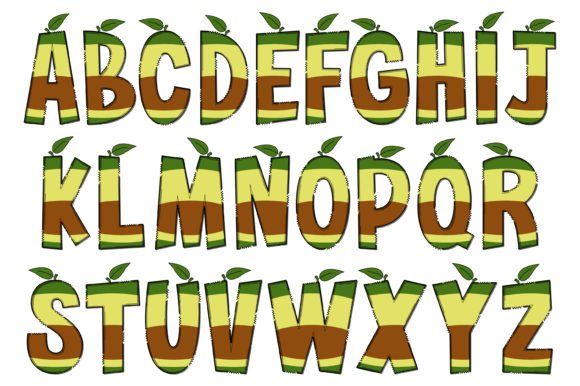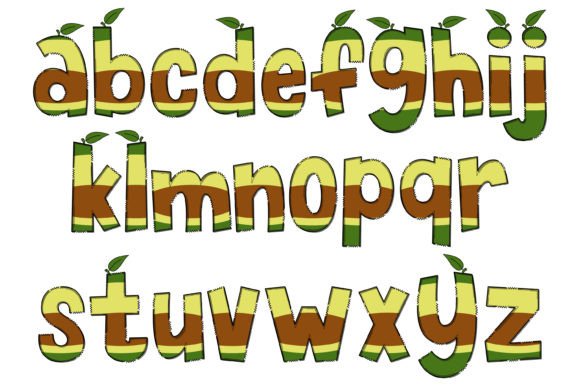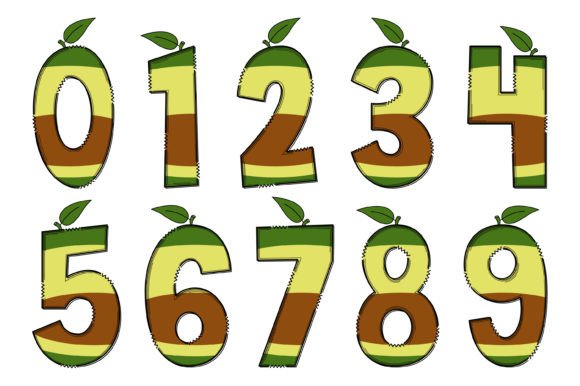
Introduction to Organic Avocado Font
Have you ever sat down at your desk, surrounded by scraps of paper, paint swatches, and a half-eaten bag of avocado toast, feeling inspired to create something truly special? That’s exactly the kind of moment where the Organic Avocado Font comes to life. This unique design resource is perfect for adding a playful touch to your creative project, whether it’s a children’s book, a poster, or a set of greeting cards.
As a designer, you know how important it is to choose a font that not only looks great but also conveys the right message. The Organic Avocado Font is a high-quality, color font that’s specifically designed to add a touch of whimsy and fun to your designs. With its transparent background and compatibility with popular design software like PhotoShop and Illustrator, this font is a valuable addition to any designer’s toolkit.
Key Features of Organic Avocado Font
- Unique Hand-Drawn Design: The Organic Avocado Font features a distinctive, hand-drawn style that adds a touch of elegance to any creative project.
- Perfect for Creative Projects: The Organic Avocado Font is ideal for a variety of creative projects, including branding, packaging, and digital design.
Honest Review: Organic Avocado Font
As a designer, I’m always on the lookout for unique and high-quality design resources. Recently, I came across the Organic Avocado Font and decided to give it a try.
- High-quality design: The font is well-designed and visually appealing, making it a great addition to any project.
However, I did encounter some limitations. The font may not be suitable for all types of projects, particularly those requiring precise control over letter spacing or size.
⚠️ Limitations: The font’s organic nature can sometimes lead to uneven letter spacing, which may require manual adjustment in design software.
Overall, I’m impressed with the Organic Avocado Font and would recommend it for creative projects where a unique, organic feel is desired. The font’s high quality and transparent background make it a valuable design resource. ✨
Tips for Getting the Most Out of the Organic Avocado Font
Experiment with different font sizes and styles to create visual interest. Use the font in combination with other design elements to create a cohesive look. Consider using the font with a transparent background to add depth to your design.
The Organic Avocado Font is perfect for a variety of creative projects, including logos, branding materials, and social media graphics. It’s also great for use in web design, print materials, and more.